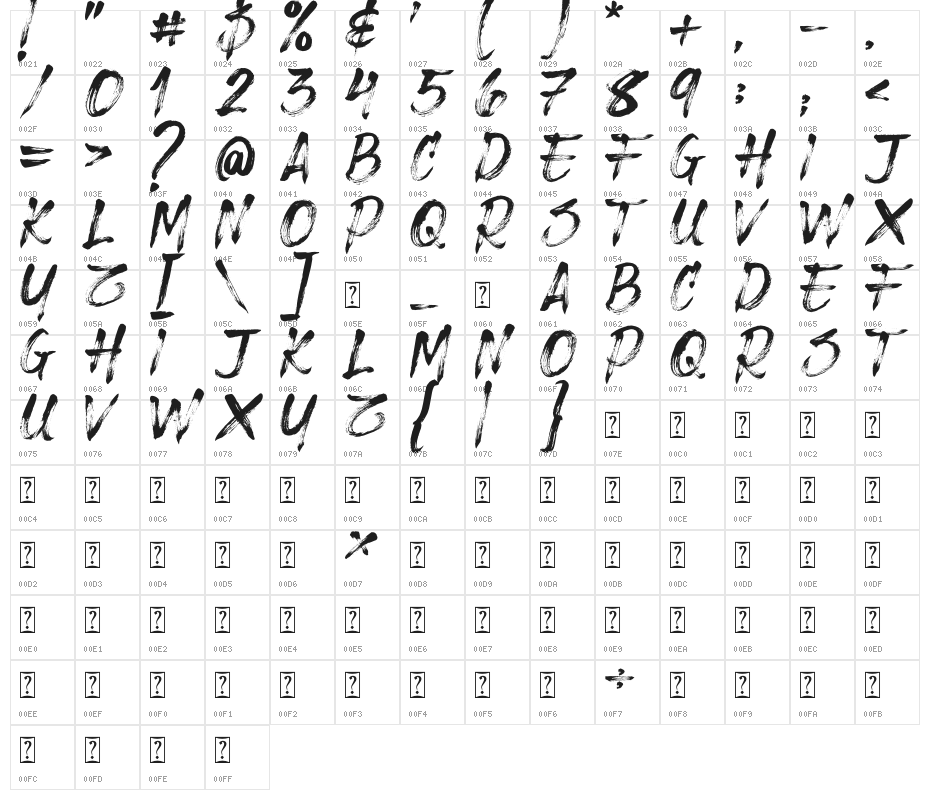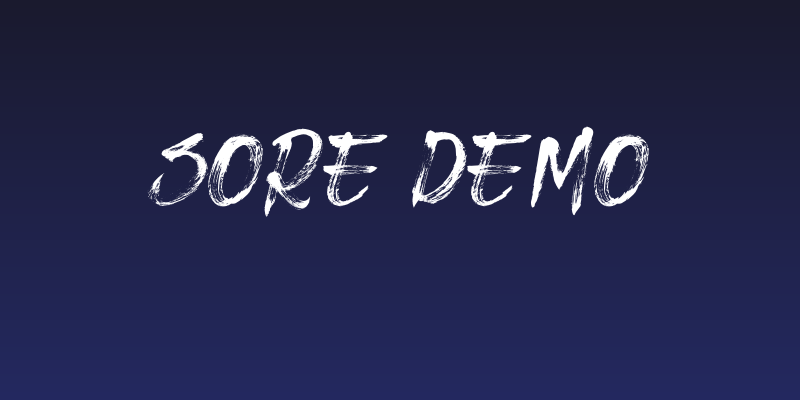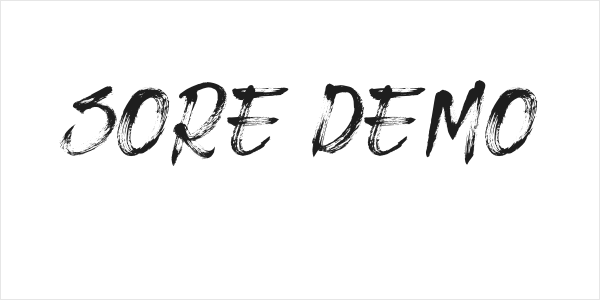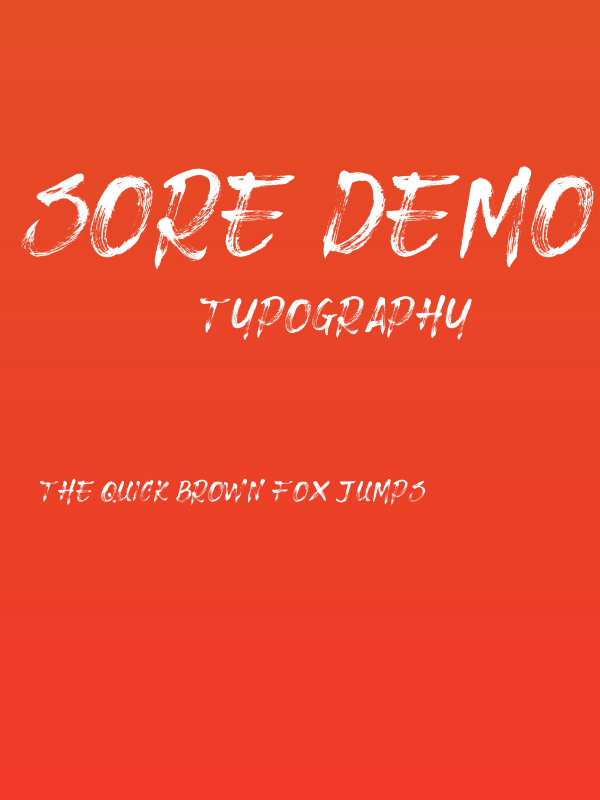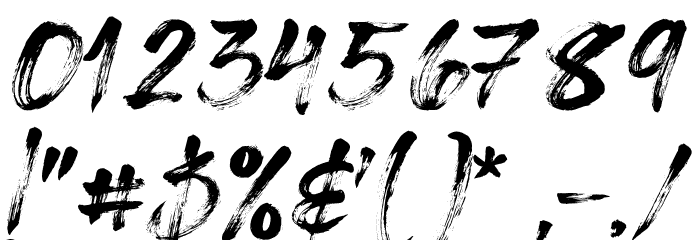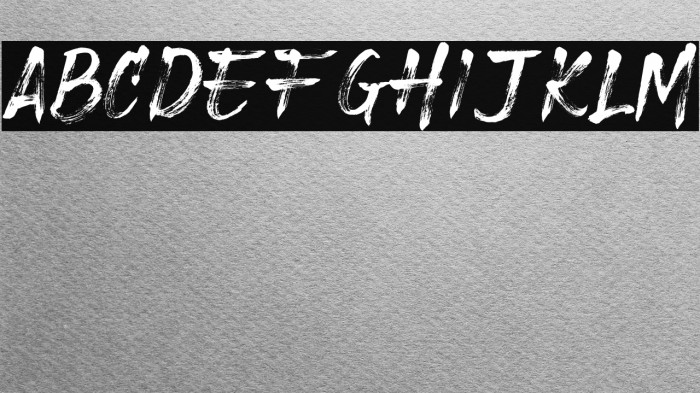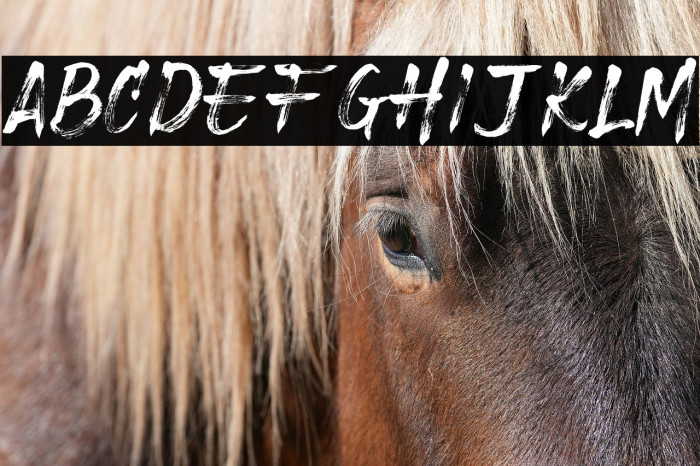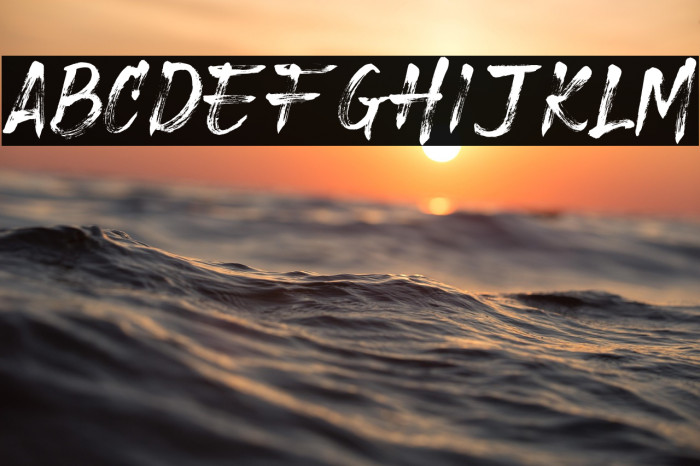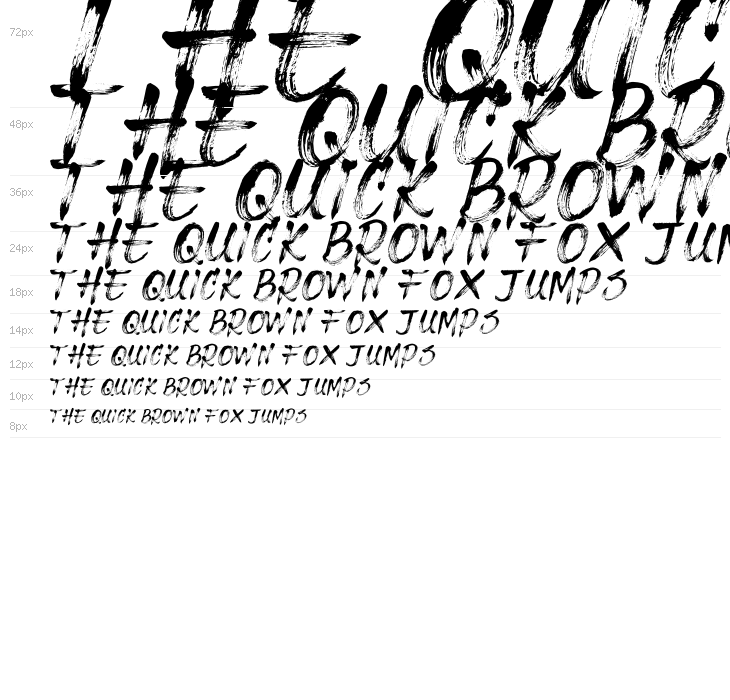
Sore DEMO Font
Sore DEMO Description
This font features a bold, expressive brush style that exudes energy and dynamism. The strokes are thick and textured, giving each character a hand-painted appearance. The uppercase and lowercase letters maintain a consistent flow, with some characters exhibiting a slight slant, enhancing the font's casual and artistic feel. The numbers and special characters are equally bold, maintaining the same brushstroke texture, which adds to the overall cohesive look. This font is ideal for projects that require a strong visual impact and a sense of creativity.
| Proposed Projects | Perfect for posters, branding, packaging, and any creative projects needing a bold statement. |